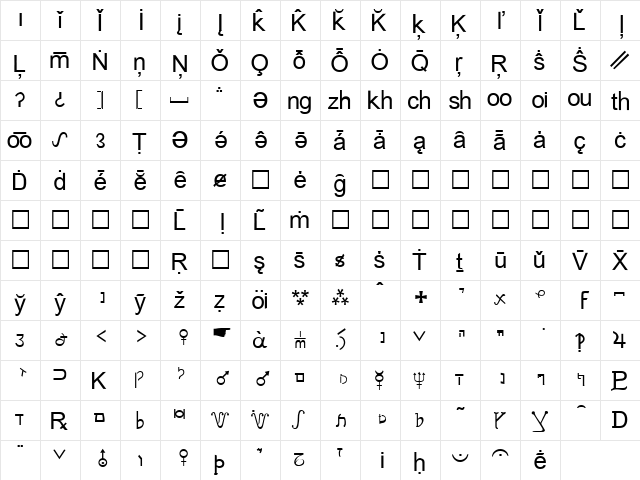
MostXFont Normal
Design Context for MostXFont Typeface
MostXFont is a composed and adaptable typeface that performs quietly and consistently across a wide range of design contexts.
Pro Tip: Use MostXFont in both headline and body roles to test its range before committing to a single application.